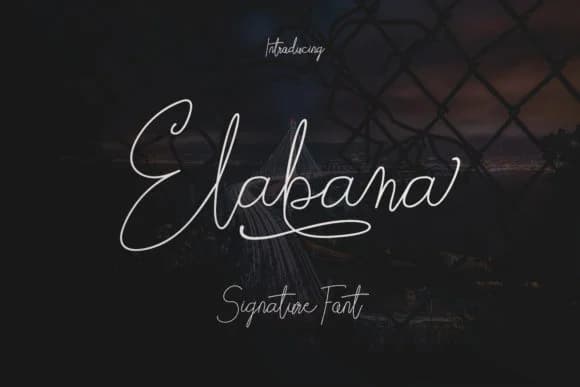
Elabama has a delicate sophistication that whispers luxury the moment you see it on a page. Created by Mojibam, this script font brings genuine elegance to the kinds of projects where personal touch and visual refinement matter equally.
The handwritten quality of Elabama excels in design contexts that celebrate careful, considered work over mass-production shortcuts. Wedding invitation suites find a natural home here, where the flowing letterforms feel like an invitation to something genuinely special and worth someone's time. Personalized monogram designs for luxury brands benefit from its graceful character, as do hand-lettered greeting cards that deserve to feel thoughtfully crafted rather than generic or rushed. You'll find it shines equally well on high-end event stationery, book cover and title treatments that need to command serious attention, and professional signature designs where authenticity and visual refinement truly count.
The font's elegant voice extends to upscale product packaging and boutique social media graphics where you want the lettering itself to be the clear focal point of the composition. Pair it with a clean, restrained sans-serif for body copy to keep all attention on the script's flowing beauty and movement. Get Elabama on Creative Fabrica and bring this graceful performer into your toolkit.
Elabama Font is a script font that shines as a display or heading face. Pair it with a clean sans-serif or serif font for body text β the contrast creates a clear hierarchy while the two styles stay balanced and easy to read.
Elabama Font
by Mojibam